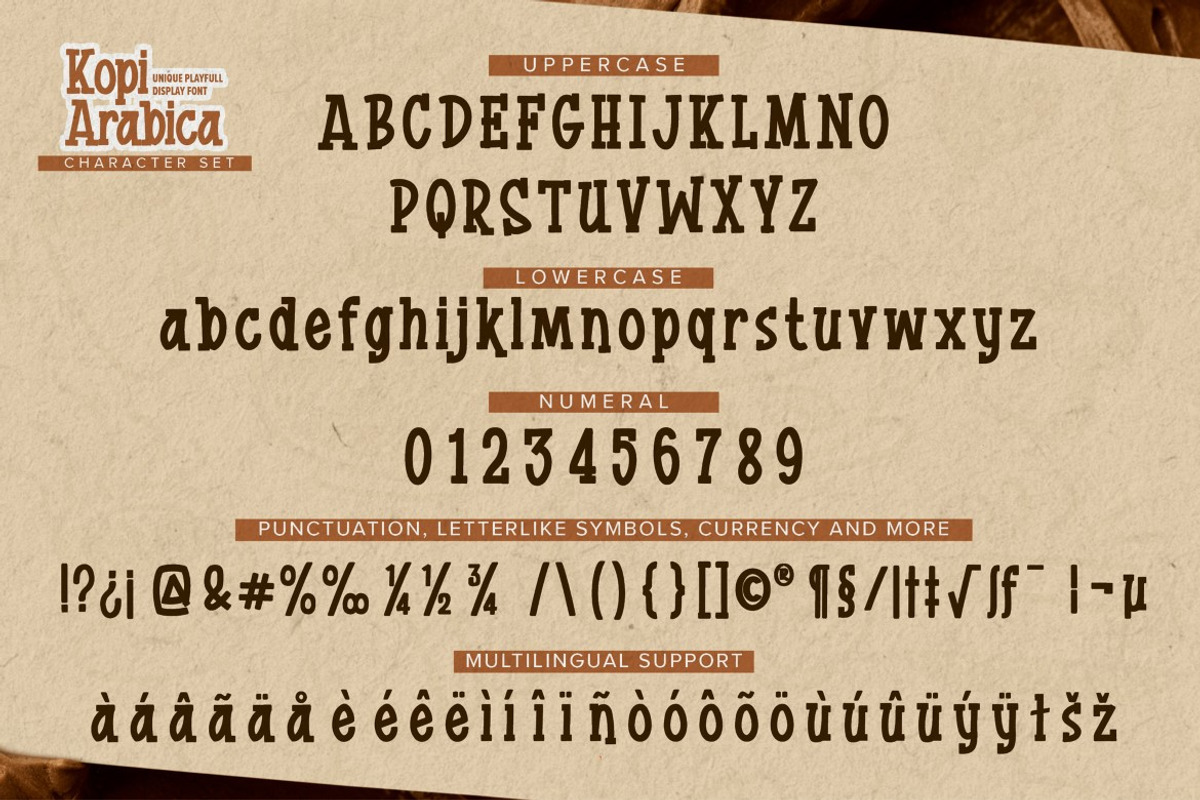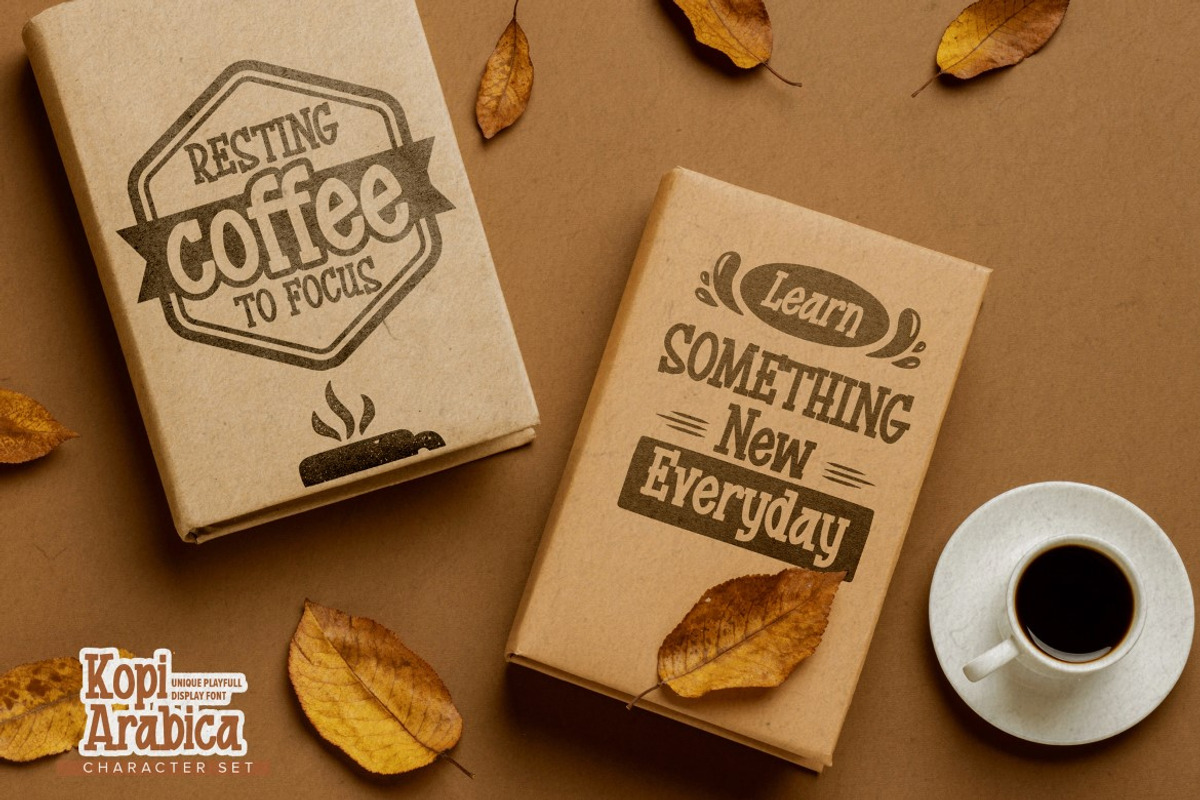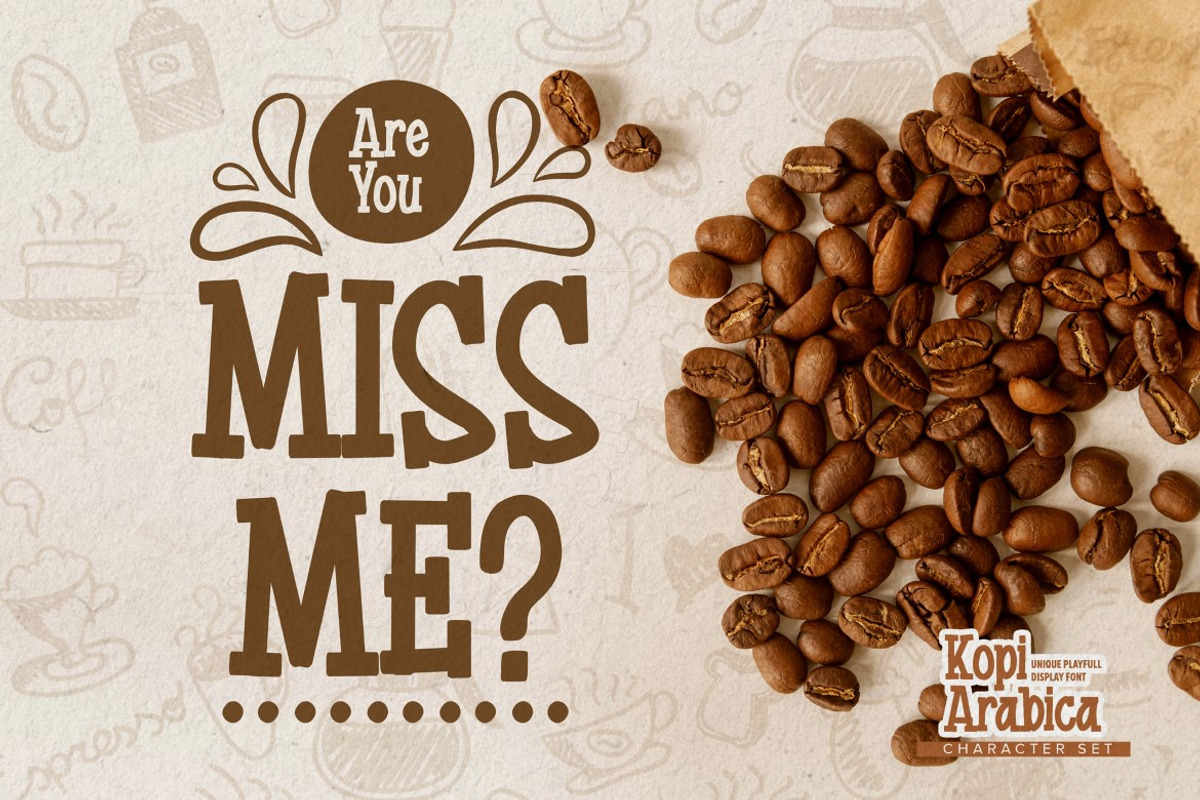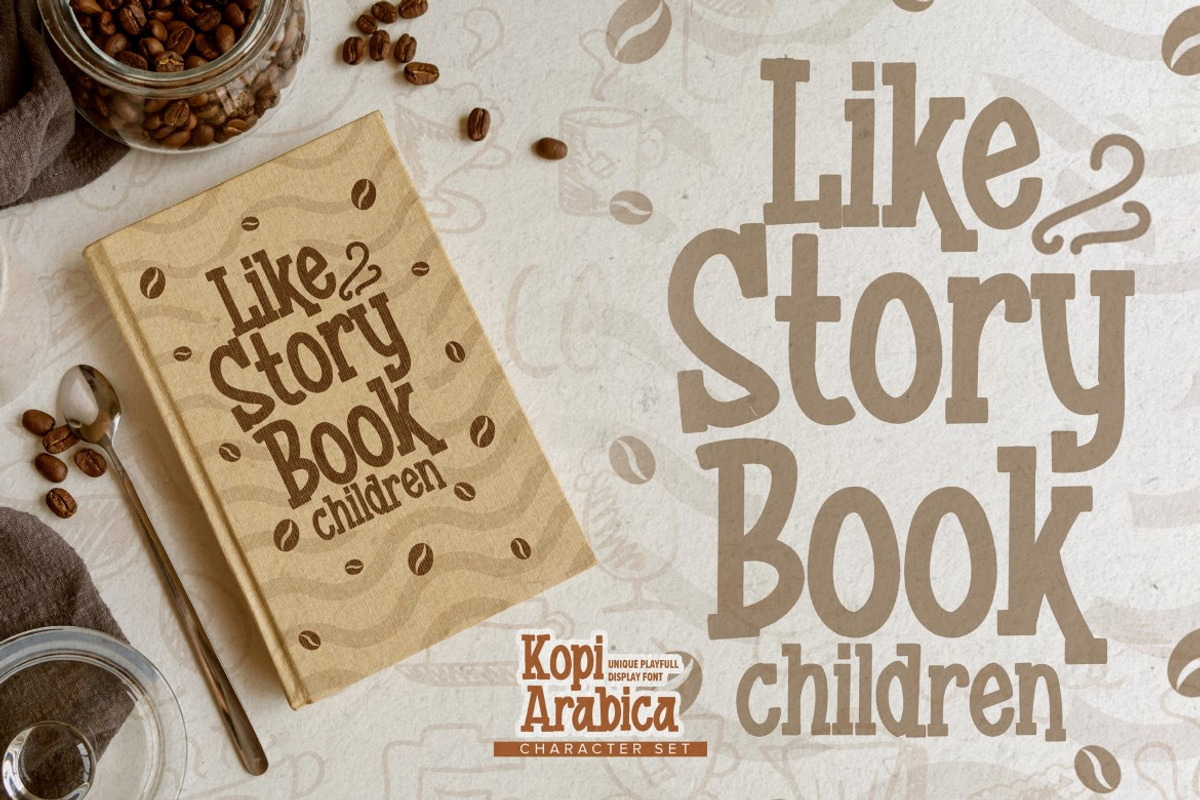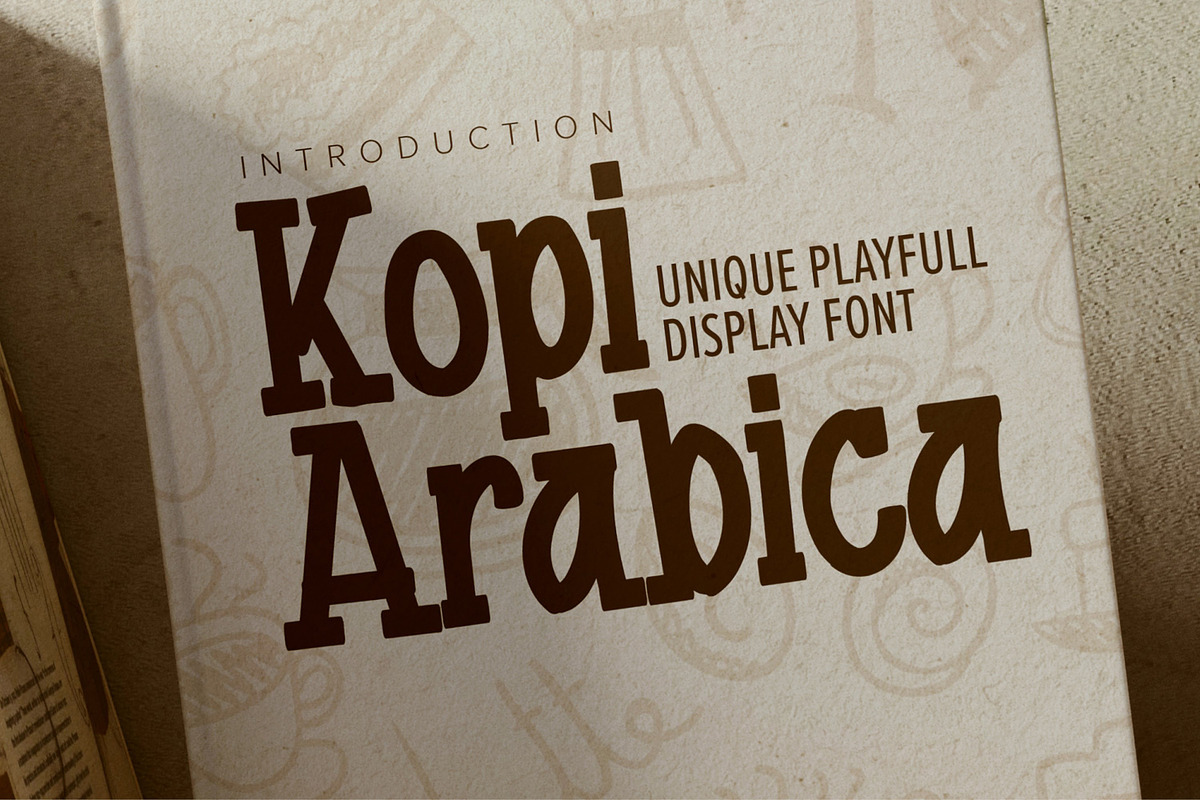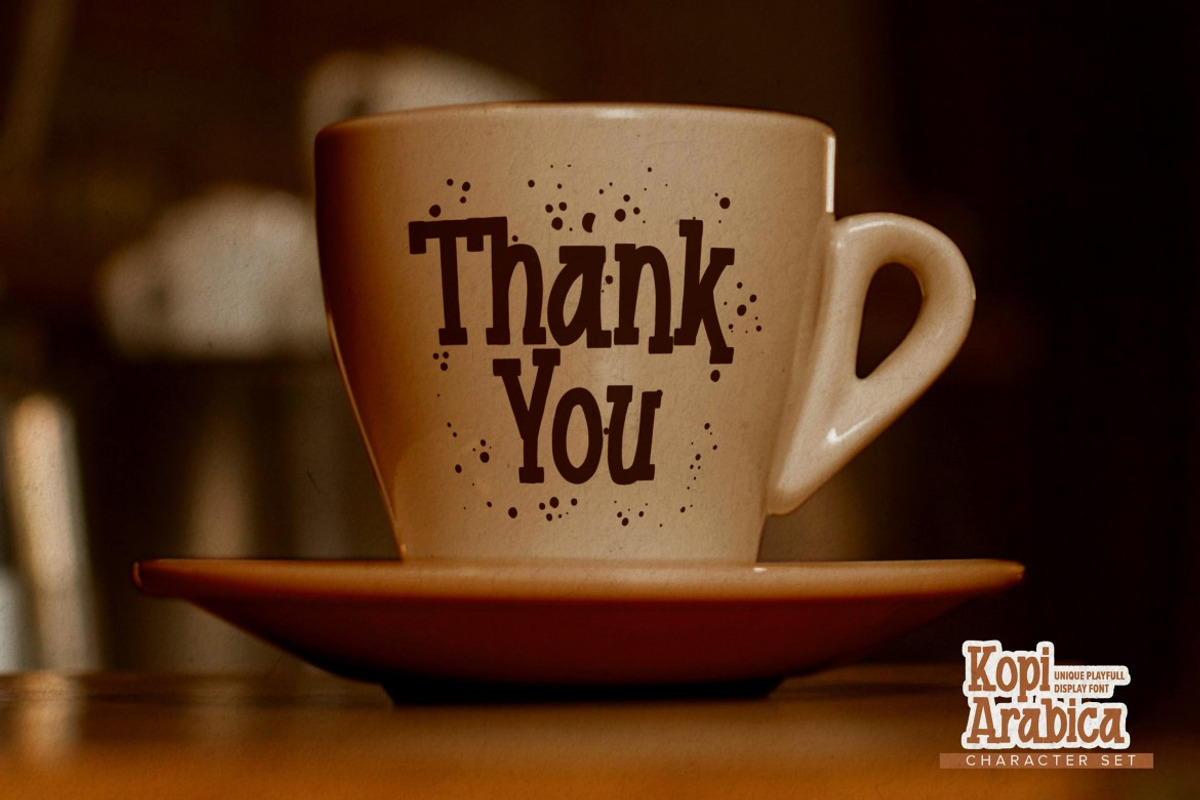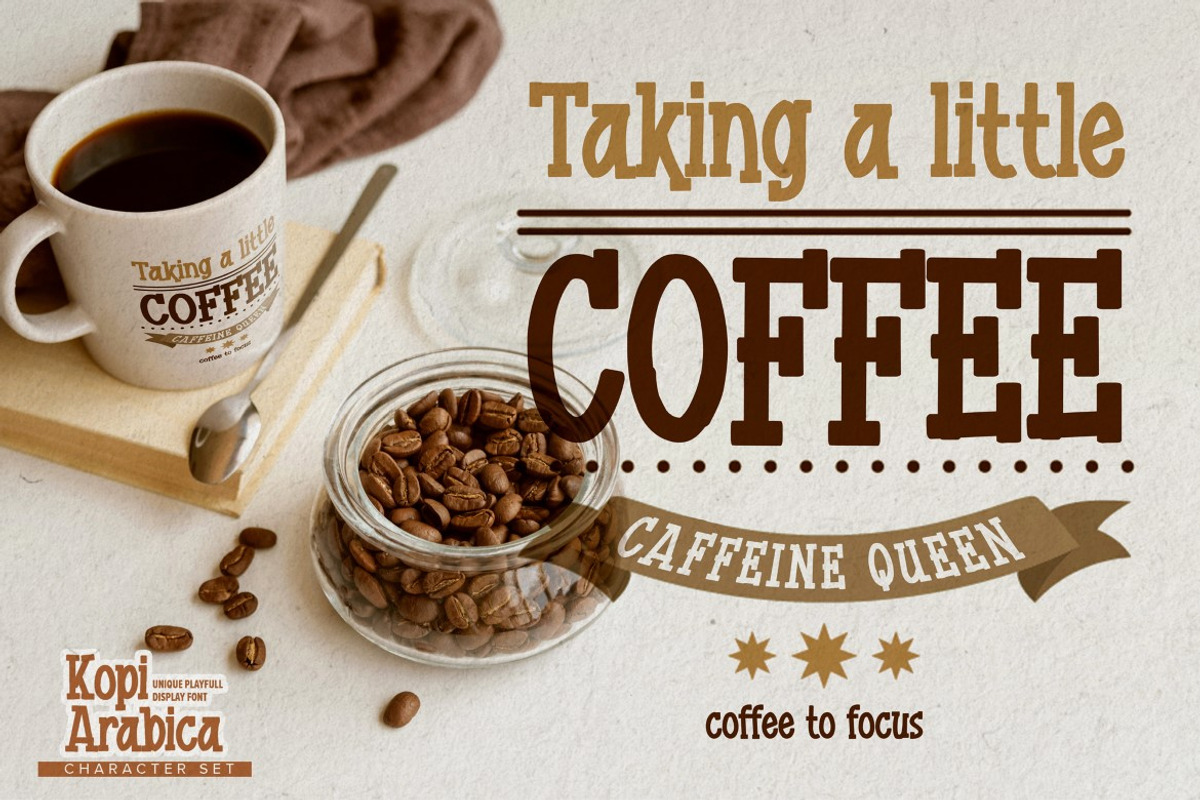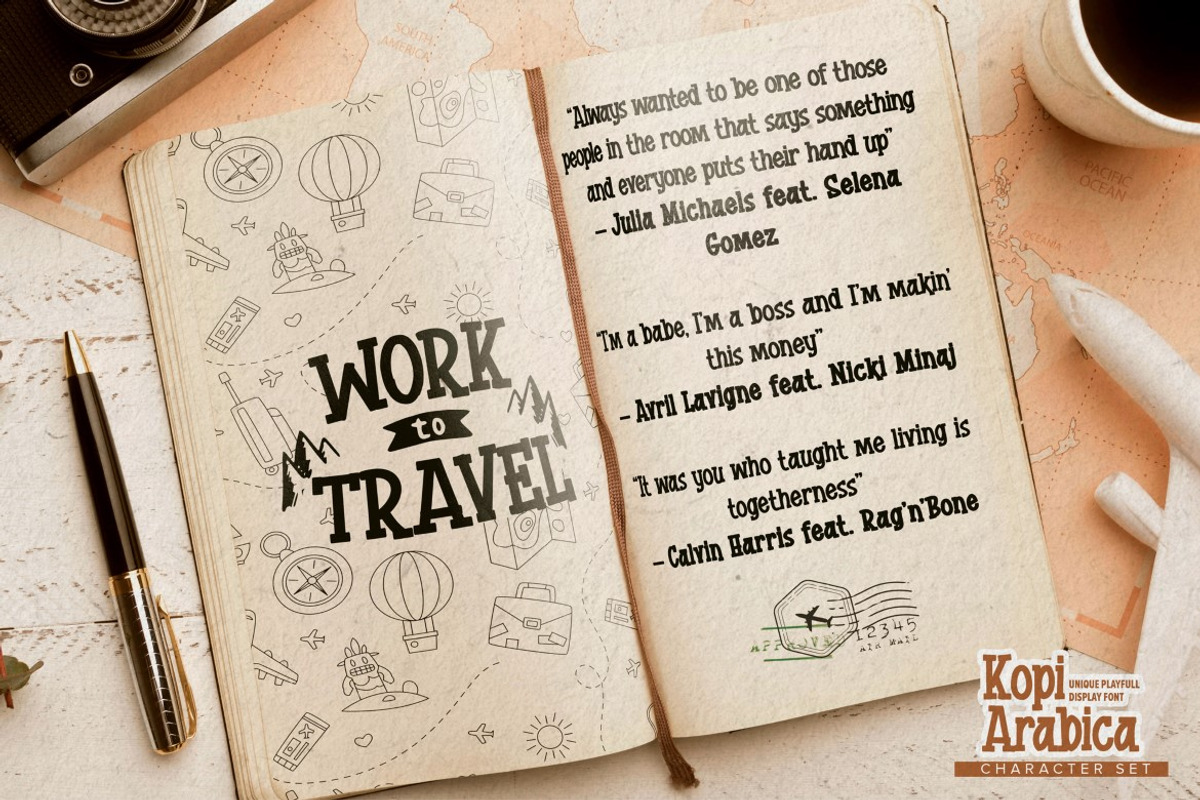
Kopi Arabica-Unique Playful Display
Kopi Arabica is Unique Playful Display Font that will make your designs look modern, unique and fun. It’s perfect for labels, quotes, posters, DIY projects, branding, packaging, greeting cards, websites, photography overlays, signs, window art, scrapbooking, tags and so much more!